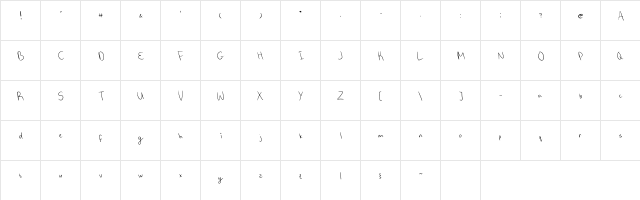
Sloppy Annabelle Regular
Design Context for Sloppy Annabelle Typeface
Sloppy Annabelle is a composed and adaptable typeface that performs quietly and consistently across a wide range of design contexts.